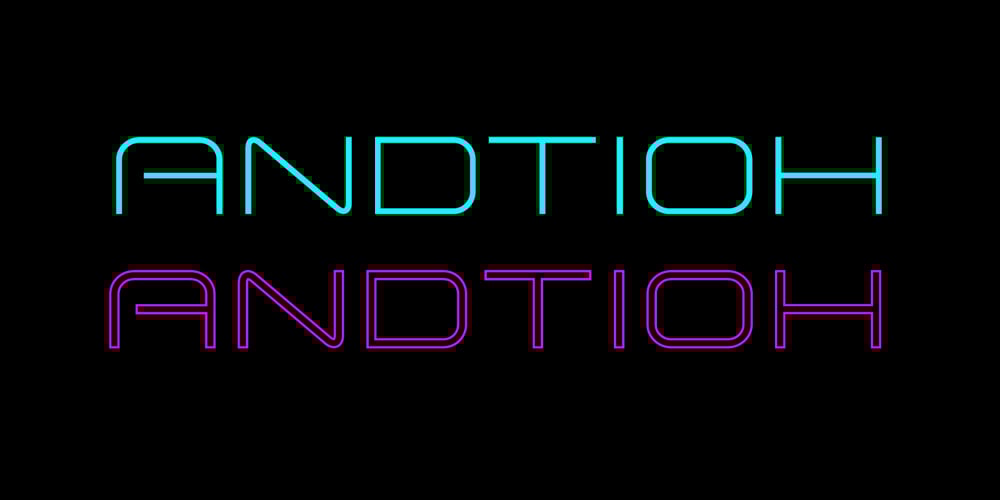
Andtioh Font Family was designed by Andrii Shevchyk and published by Andfonts. Andtioh contains 2 styles and family package options. Andtioh is my vision of sci-fi font. I want to propose the idea of simplicity and techno in two ways.I think this font can find its place in logos and names and will make your business look innovative.